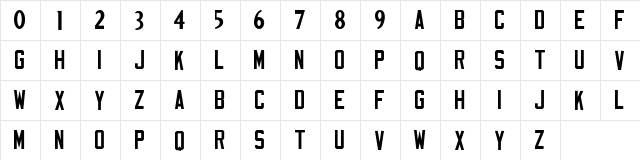
NFL Ravens Regular
Design Context for NFL Ravens Typeface
NFL Ravens takes a measured approach to typography — its balanced proportions and neutral character make it a reliable workhorse for both digital and print work.